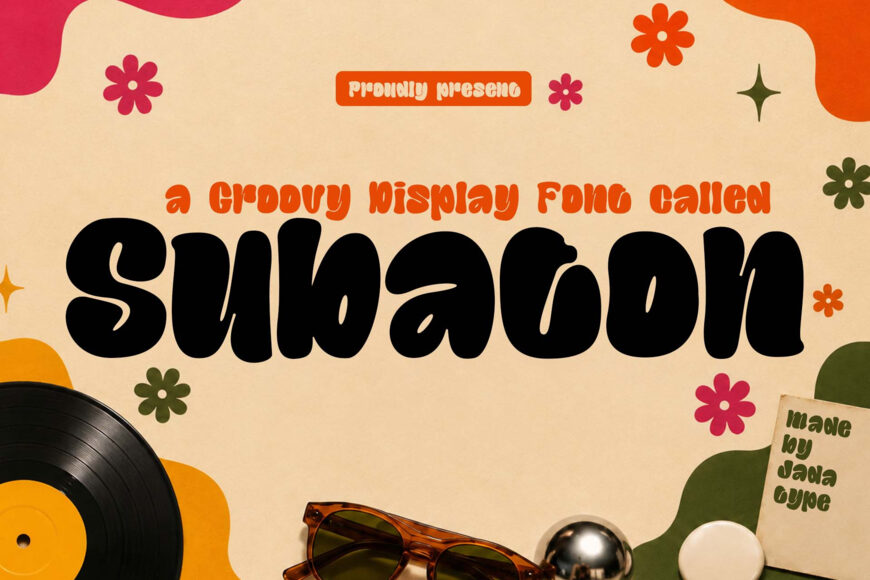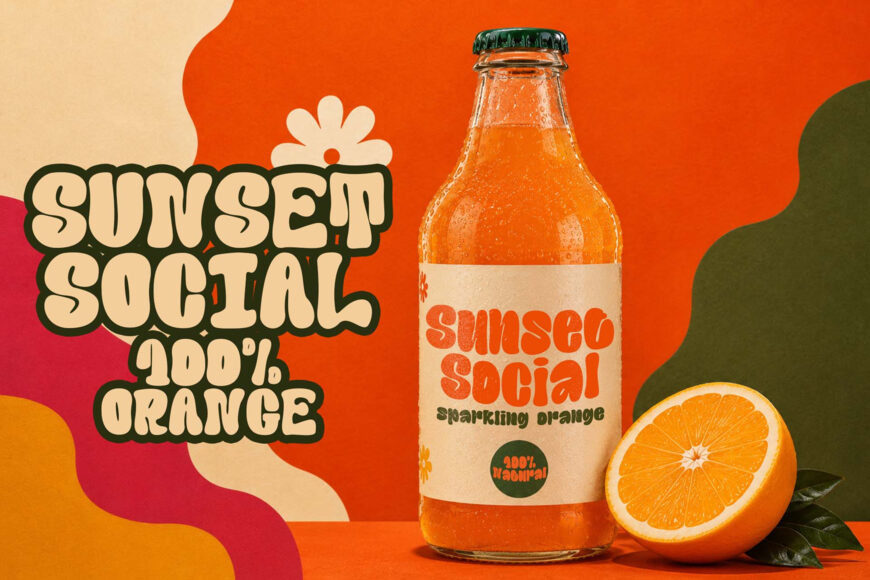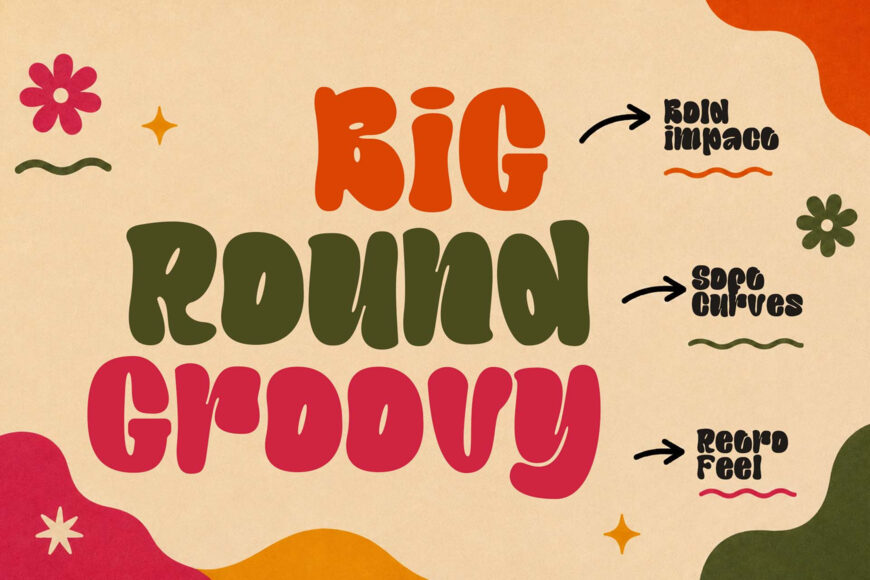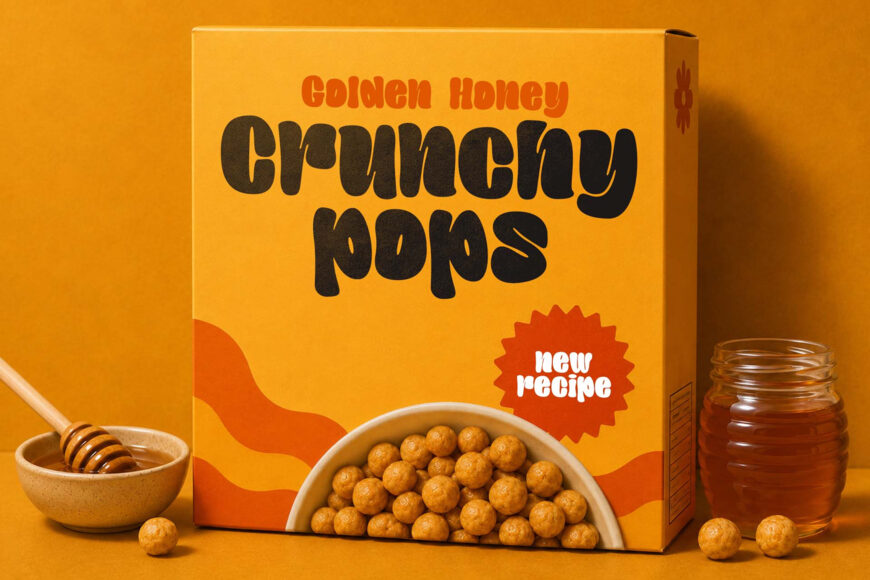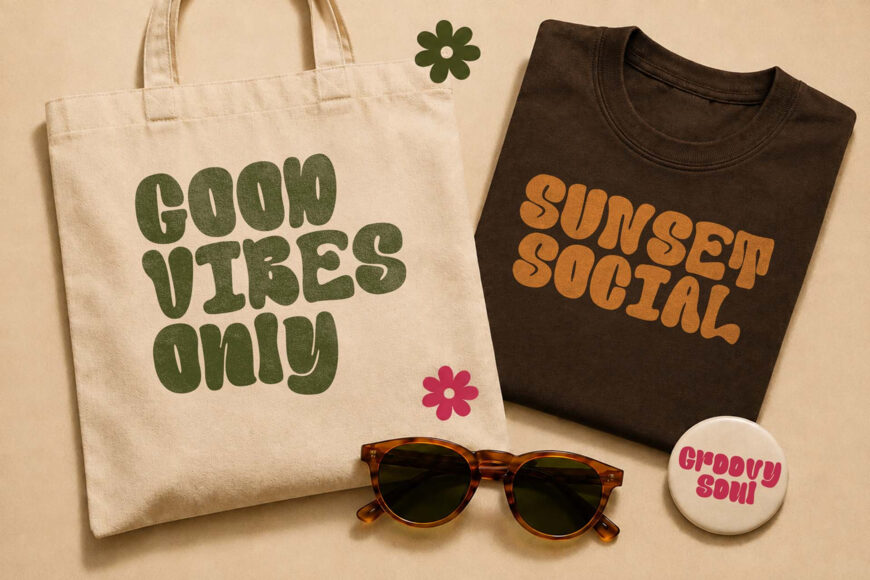
Subaton is a playful retro display font with bold, rounded letterforms and an energetic hand-drawn character. Its organic shapes and groovy personality give it a cheerful vintage feel, making it especially effective for eye-catching headlines and designs that need a youthful, nostalgic touch.
Perfect for branding, logo design, posters, book covers, social media graphics, packaging, event graphics, children’s projects, website headers, and other expressive display applications.